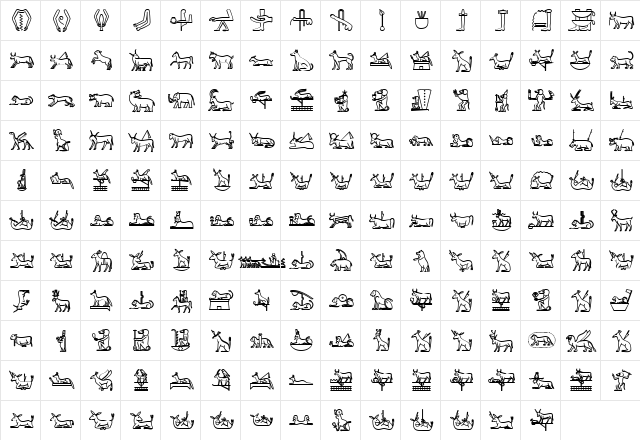
GlyphExtLibV Bold Font Preview
GlyphExtLibV Bold
Design Context for GlyphExtLibV Typeface
GlyphExtLibV is a composed and adaptable typeface that performs quietly and consistently across a wide range of design contexts. The heavy weight commands attention and anchors typographic hierarchies.